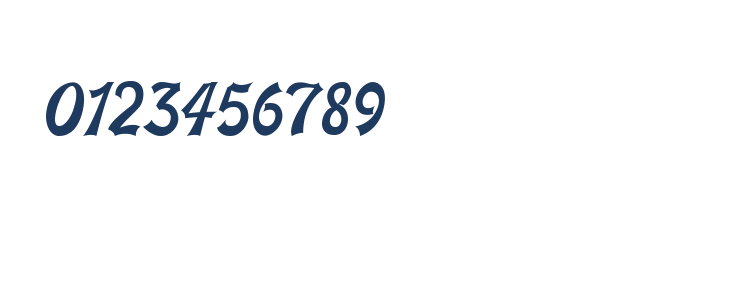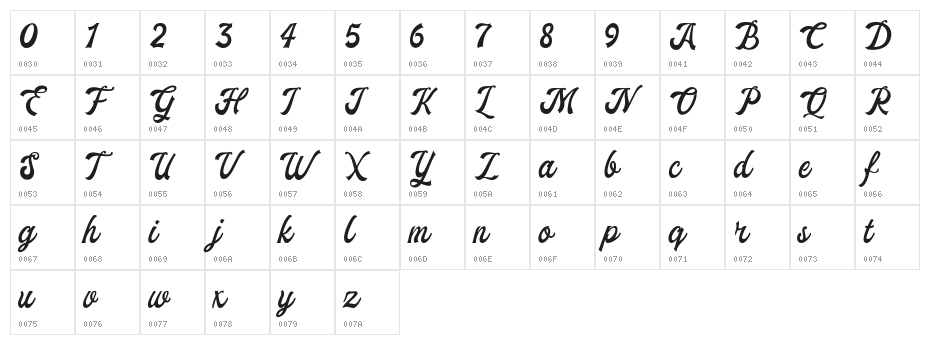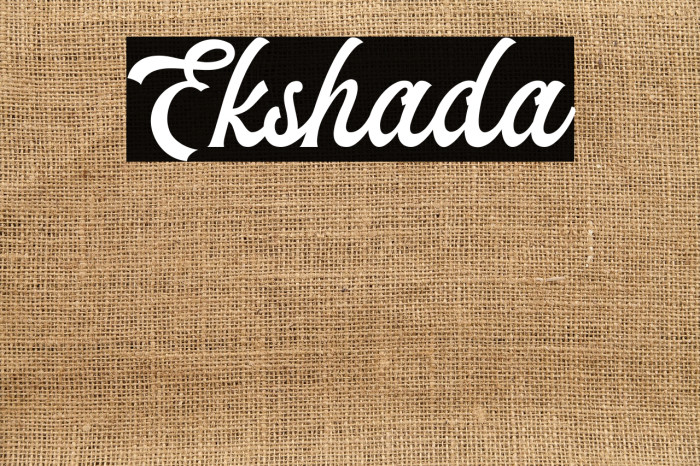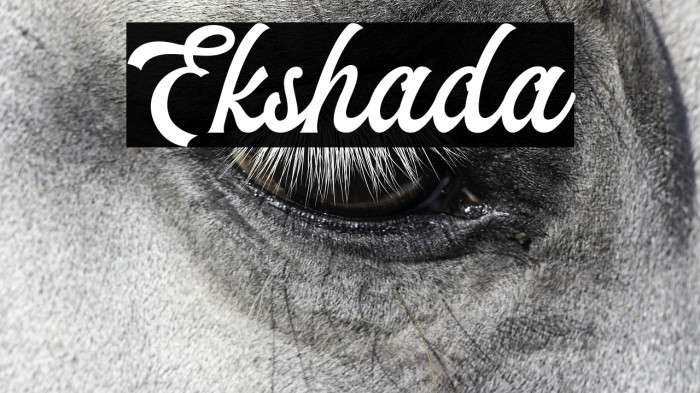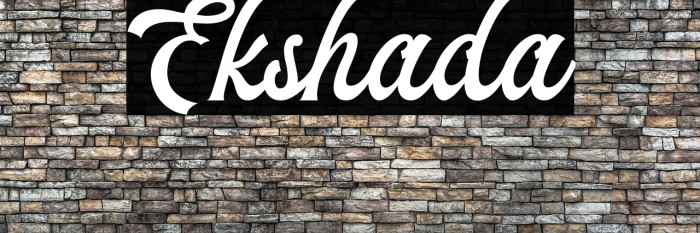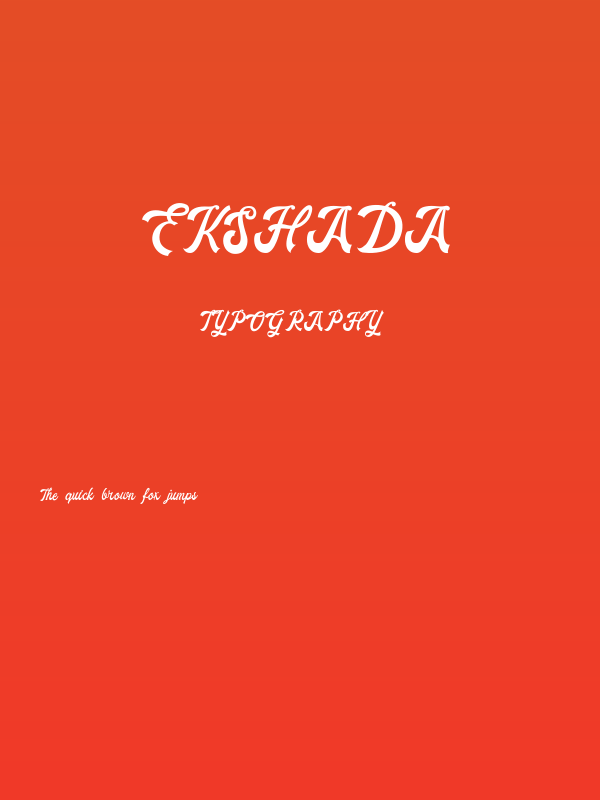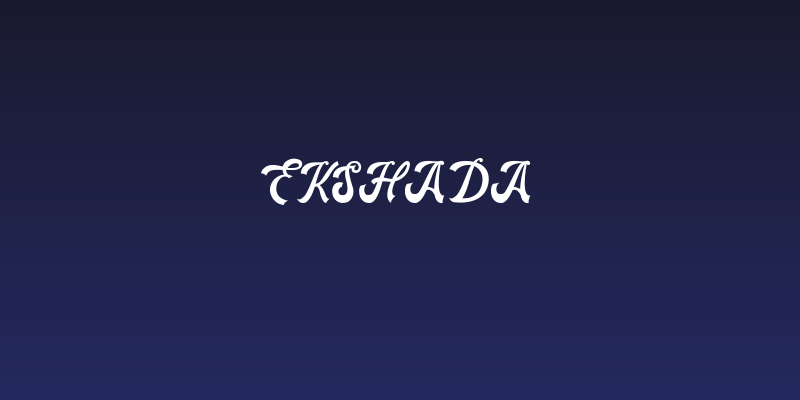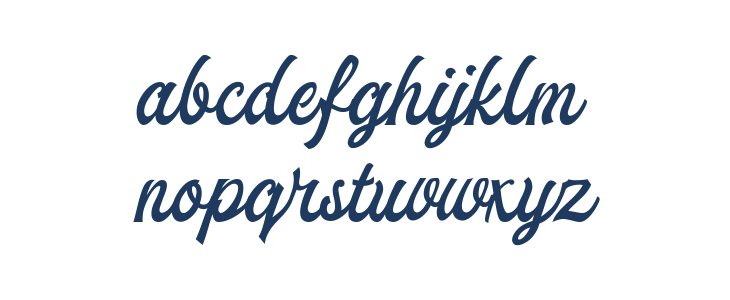
Ekshada Font
Ekshada Description
This font features a classic script style with elegant, flowing lines and a sense of movement. The characters are connected, creating a seamless and fluid appearance. The uppercase letters are slightly more ornate, with flourishes that add a touch of sophistication. The lowercase letters maintain a consistent rhythm, enhancing readability while preserving the decorative nature of the script. The numerals are bold and clear, matching the overall style of the alphabet. Special characters are included, maintaining the same elegant design. This font is ideal for projects that require a touch of elegance and sophistication.
| Overall Style | Classic |
| Use Case | Headlines, Logos, Invitations |
| Proposed Projects | Ideal for wedding invitations, elegant branding, greeting cards, and decorative headings. |